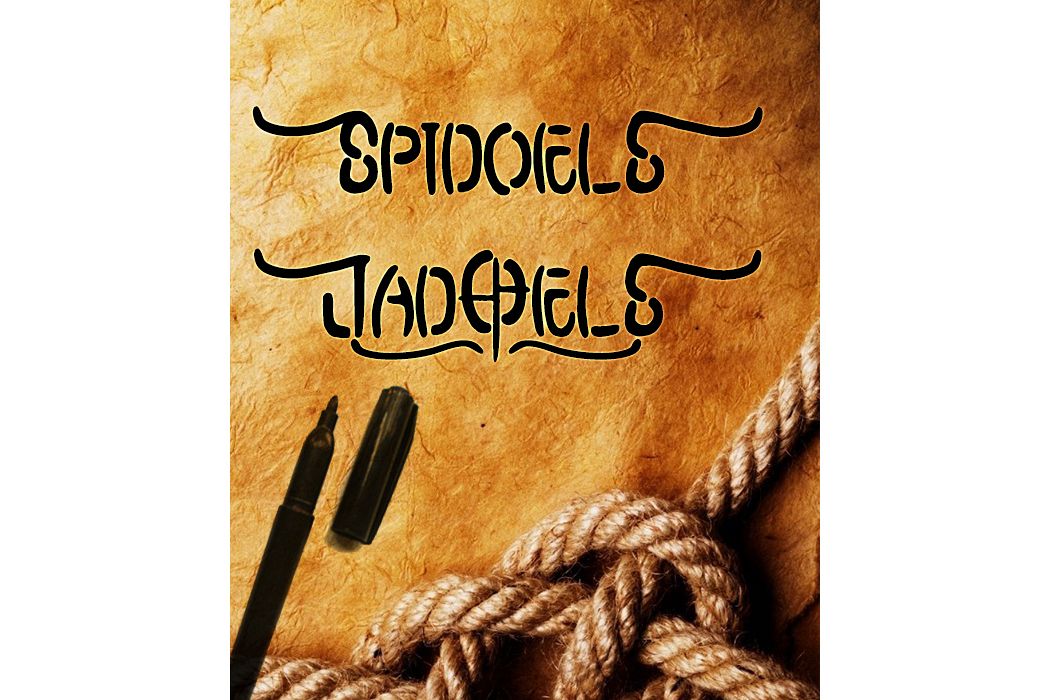
Spidoel Jadoel
SpidoelsJadoels
Spidoels Jadoels, a new handmade vintage typeface, simple, elegant and more handrawn taste. was completely with some alternate characters and Discretionary Ligatures.